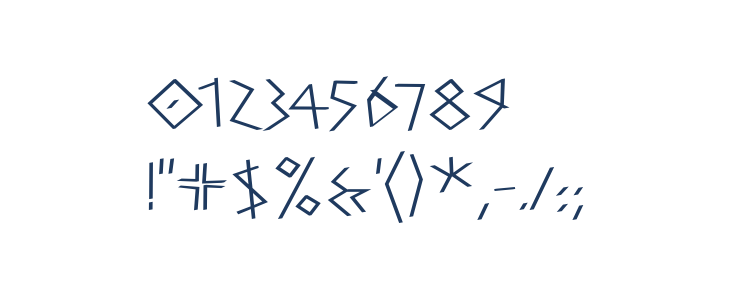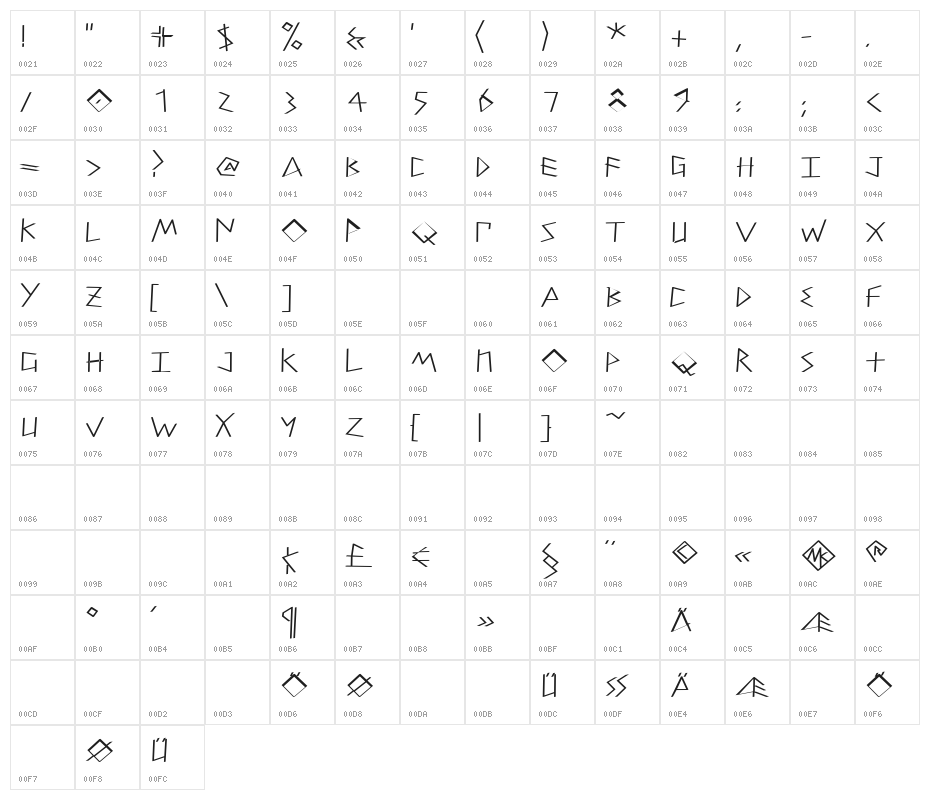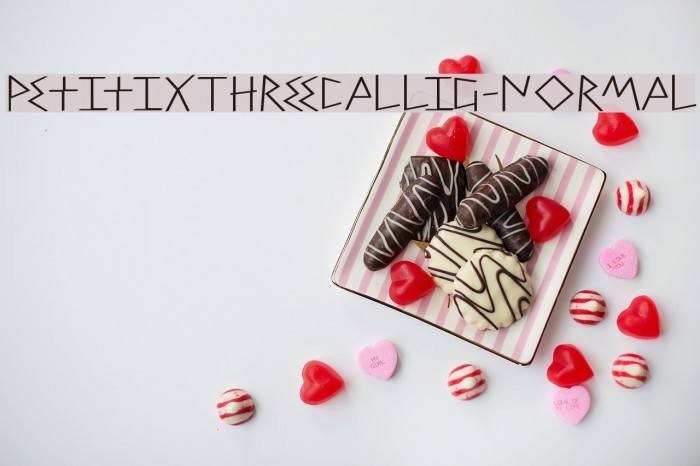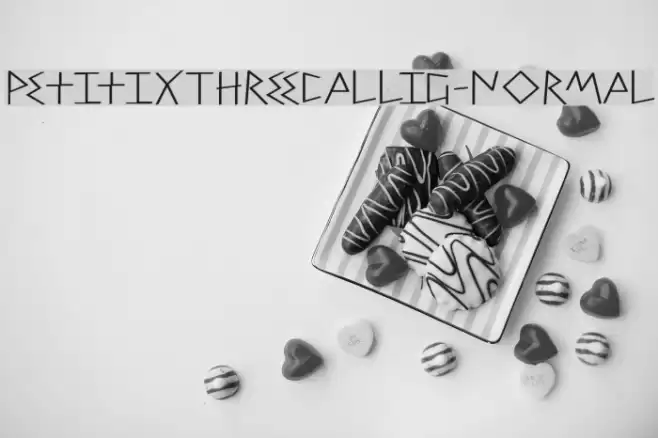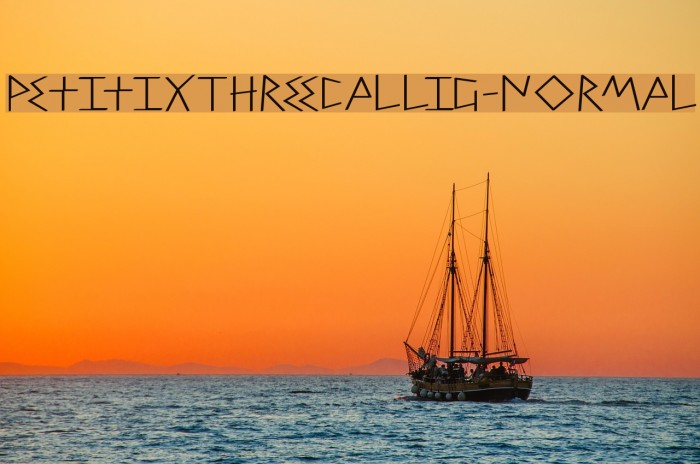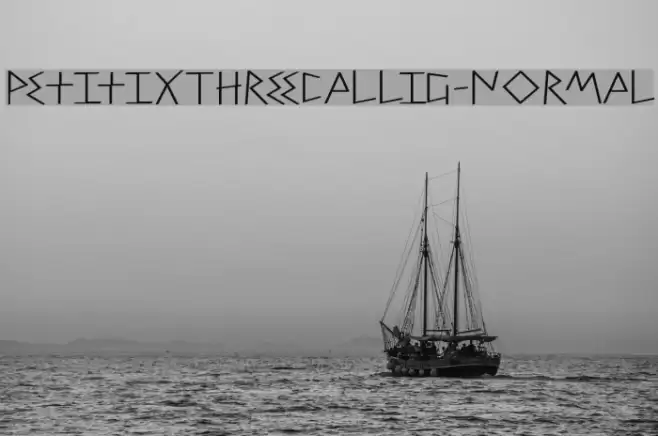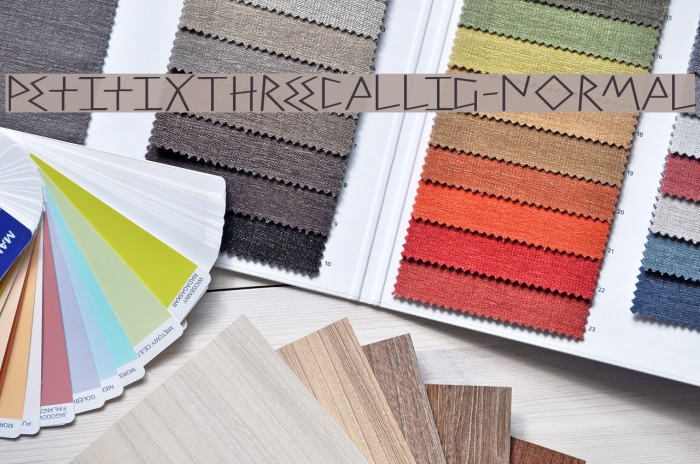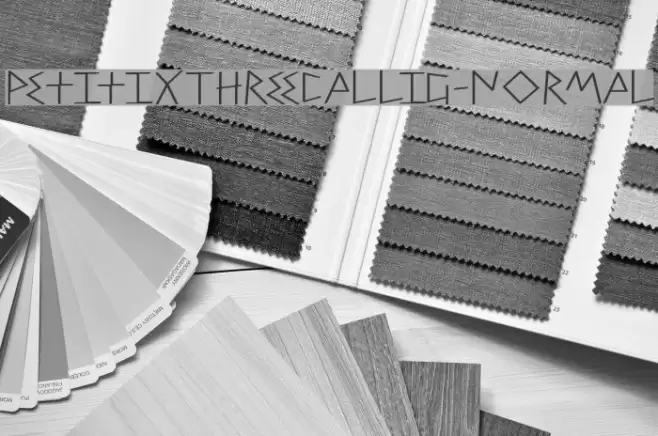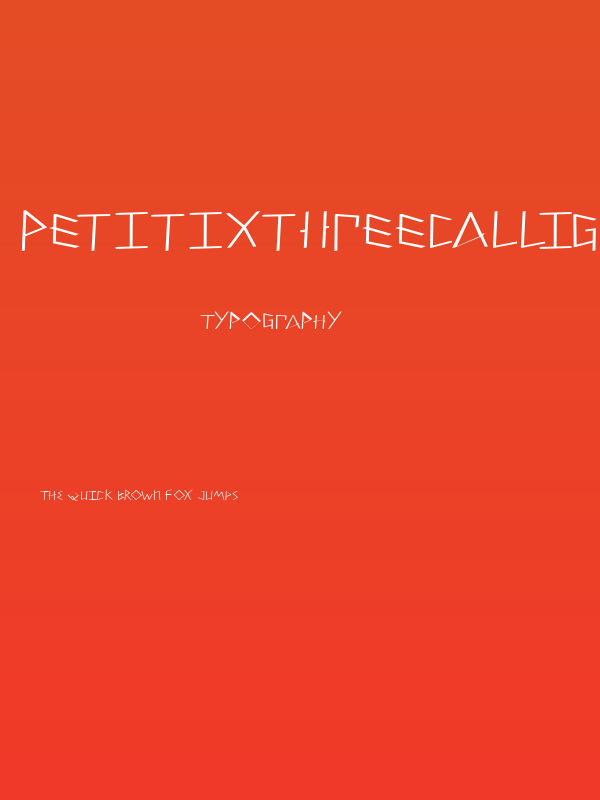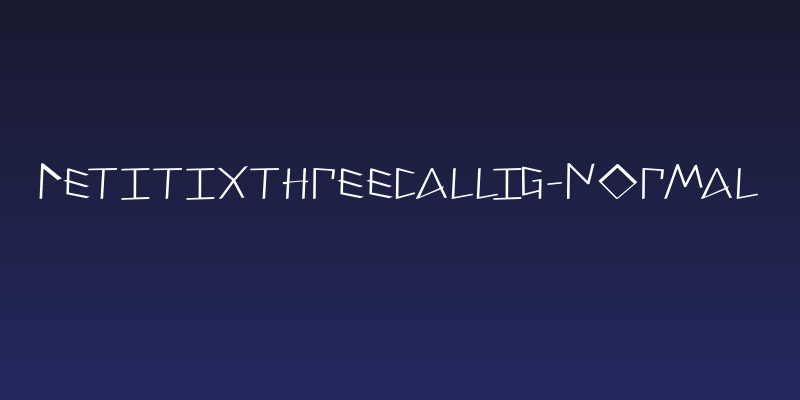
PetitixThreeCallig-Normal Font
PetitixThreeCallig-Normal Description
This font features a unique, angular design with sharp edges and a geometric style. The characters are constructed with straight lines and acute angles, giving it a modern and edgy appearance. The uppercase and lowercase letters maintain a consistent style, with a slight variation in size and proportion. Numbers and special characters follow the same angular theme, ensuring uniformity across the font. The overall look is bold and striking, making it suitable for projects that require a distinctive and contemporary aesthetic.
| Proposed Projects | Ideal for branding, posters, album covers, and digital artwork that require a bold, modern look. |